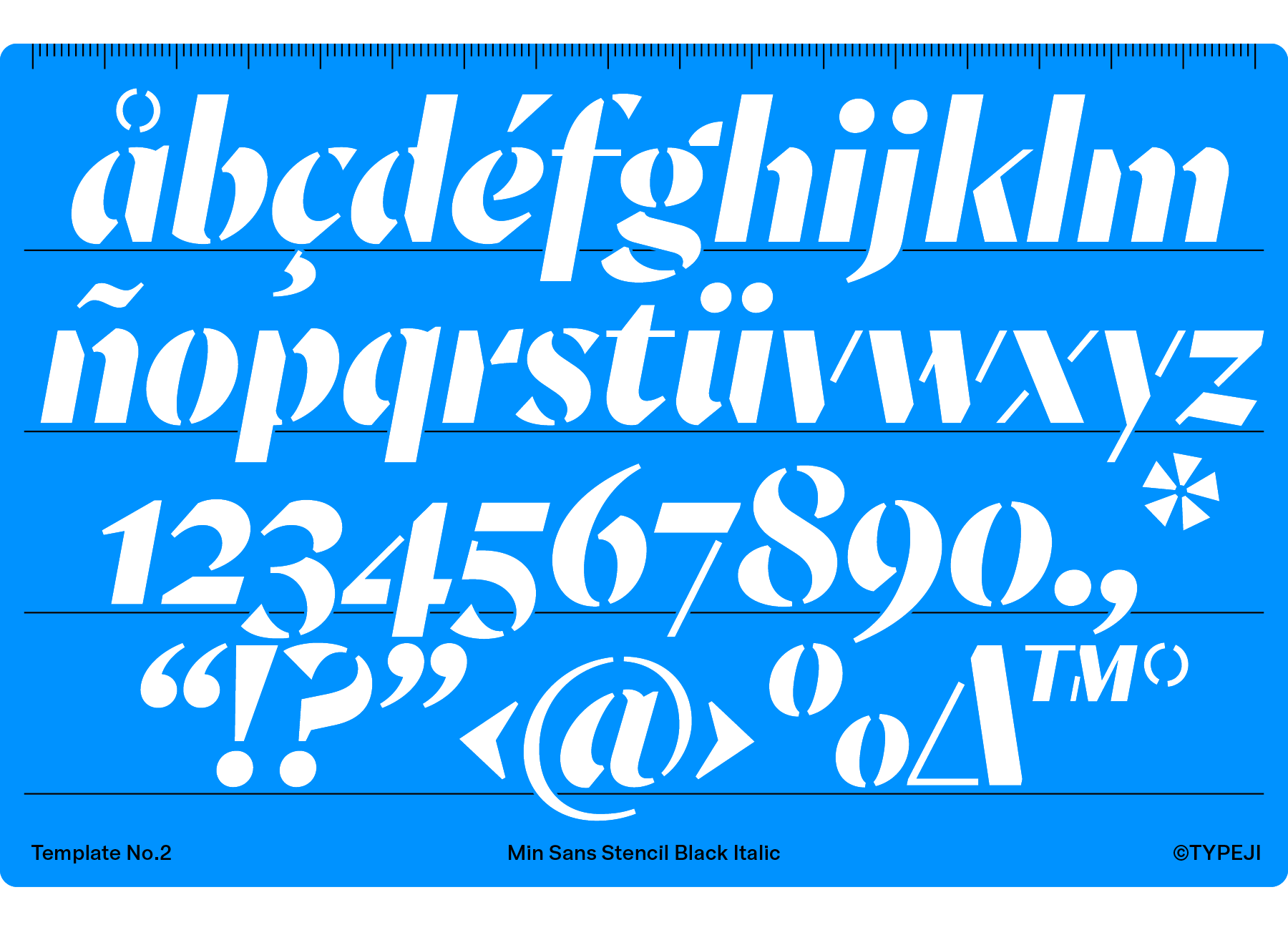
Min Sans
Stencil
Min Sans Stencil is a high-contrast sans-serif typeface that transforms the elegant, calligraphy-influenced structure of the original Min Sans into a more robust, industrial, and urban design. Released in 2023, this variant uses a modular stencil framework, introducing precisely placed breaks in the letterforms. These mechanical cuts create a dynamic visual tension, offering an architectural and utilitarian tone while retaining the parent family’s sophistication and clean contours. It functions exceptionally well in display settings like signage, contemporary branding, and editorial layouts where a bold, graphic character is desired, and is available in six weights with accompanying italics.
Min Sans is a high-contrast sans-serif typeface that blends modern structure with calligraphic elegance. Originally started in 2016 and first introduced on FutureFonts in 2020, the typeface was designed to offer a display-friendly sans serif that feels both crisp and refined. With contemporary proportions and clean contours, Min Sans features sharp notches and a subtle calligraphy-inspired construction. These elements bring clarity, warmth, and a touch of sophistication to the overall design. The result is a distinctive visual rhythm that stands out in editorial and branding applications.
The family includes six weights with matching italics, making it versatile for titles, headlines, and subheads across print and digital formats. Its high contrast and expressive character make Min Sans particularly effective in layouts that require both precision and personality. The stencil version is introduced in 2023 and released as a new family on FutureFonts. It brings an urban and industrial look to Min Sans. The combination of its calligraphy-influenced skeleton and mechanical details gives the typeface a sophisticated yet urban quality.
Min Sans Stencil is a high-contrast sans-serif typeface that transforms the elegant, calligraphy-influenced structure of the original Min Sans into a more robust, industrial, and urban design. This variant uses a modular stencil framework, introducing precisely placed breaks in the letterforms. These mechanical cuts create a dynamic visual tension, offering an architectural and utilitarian tone while retaining the parent family’s sophistication and clean contours. It functions exceptionally well in display settings like signage, contemporary branding, and editorial layouts where a bold, graphic character is desired.
• DesignerTien-Min Liao, Weizhong Zhang
• ManufacturerTypeji